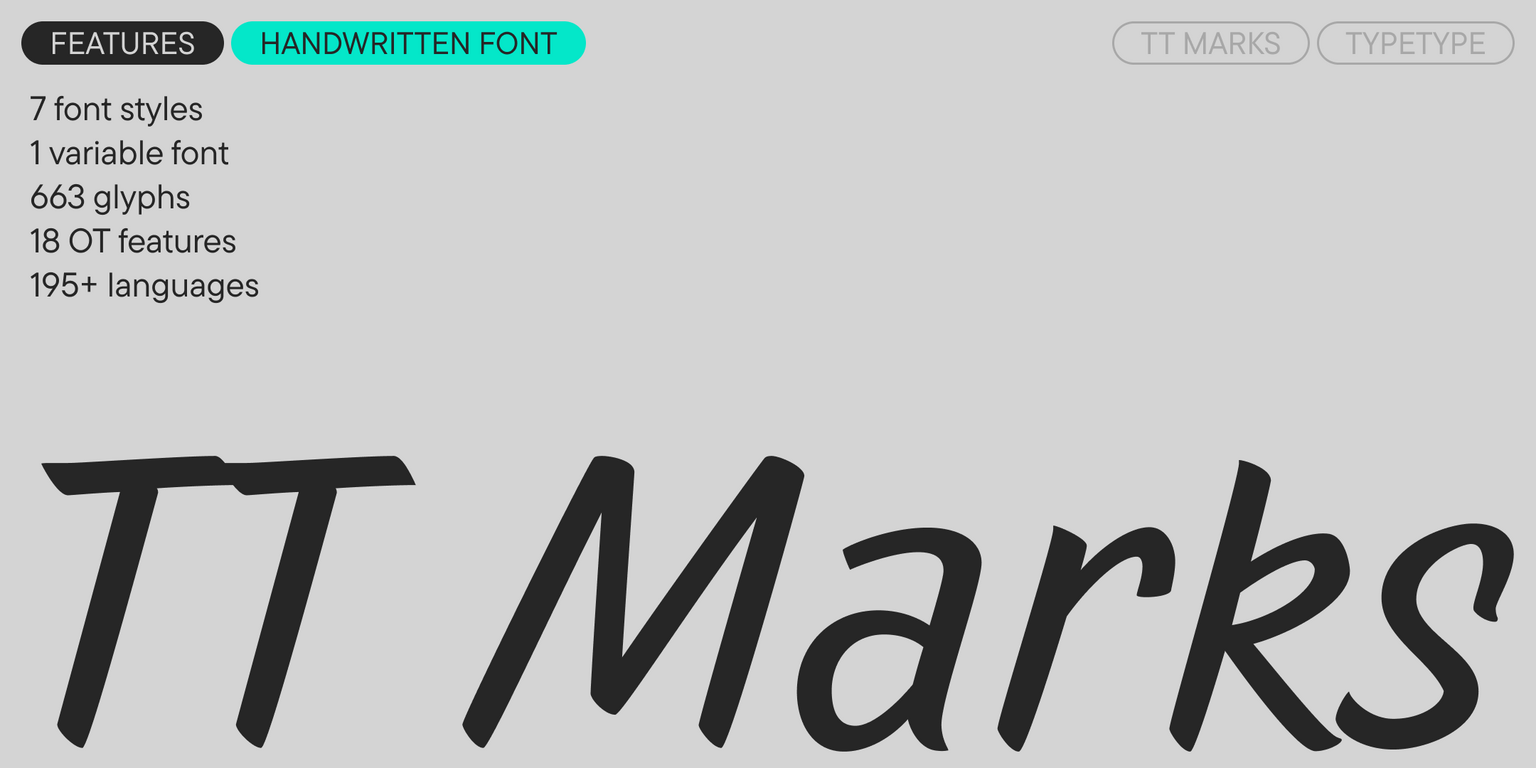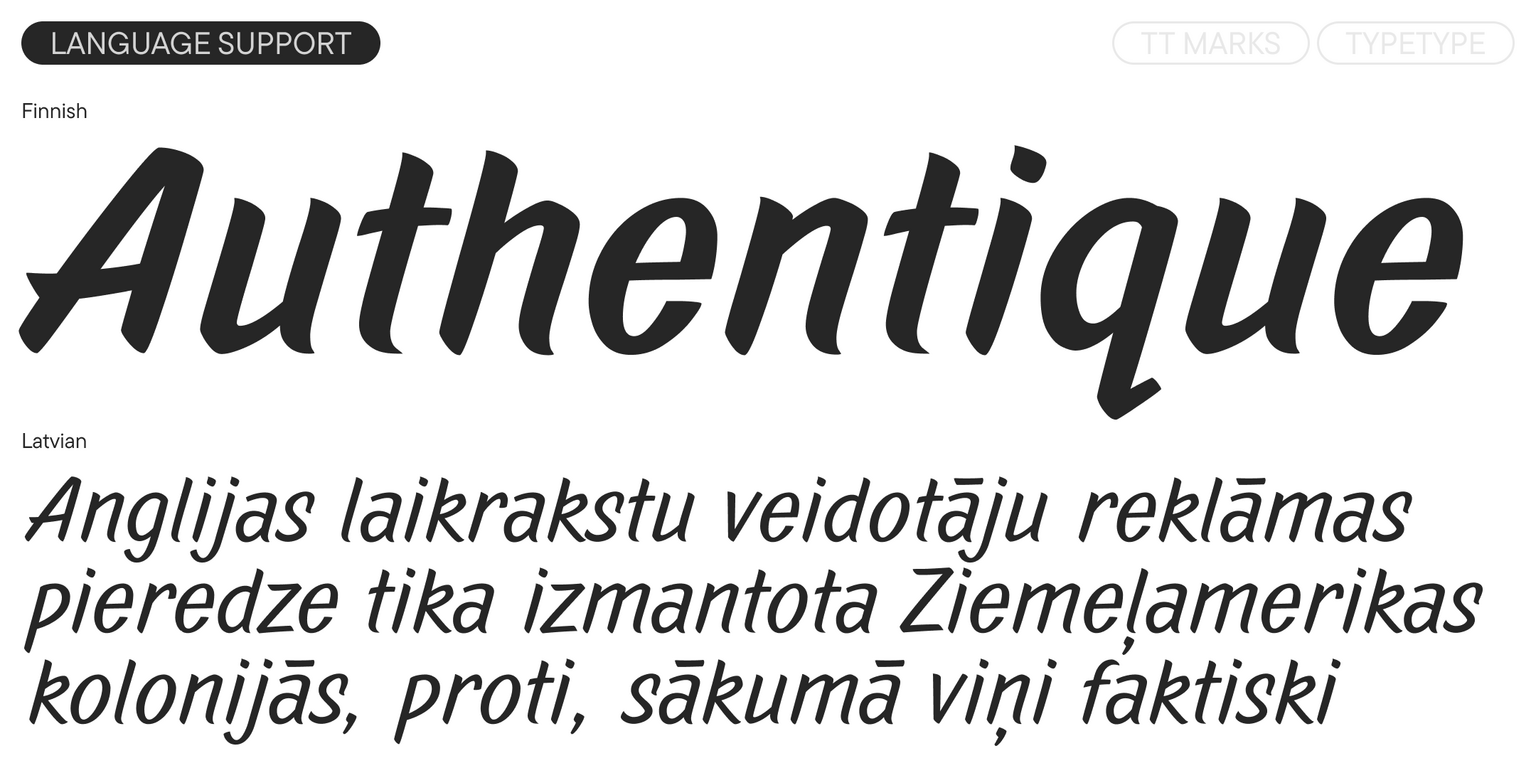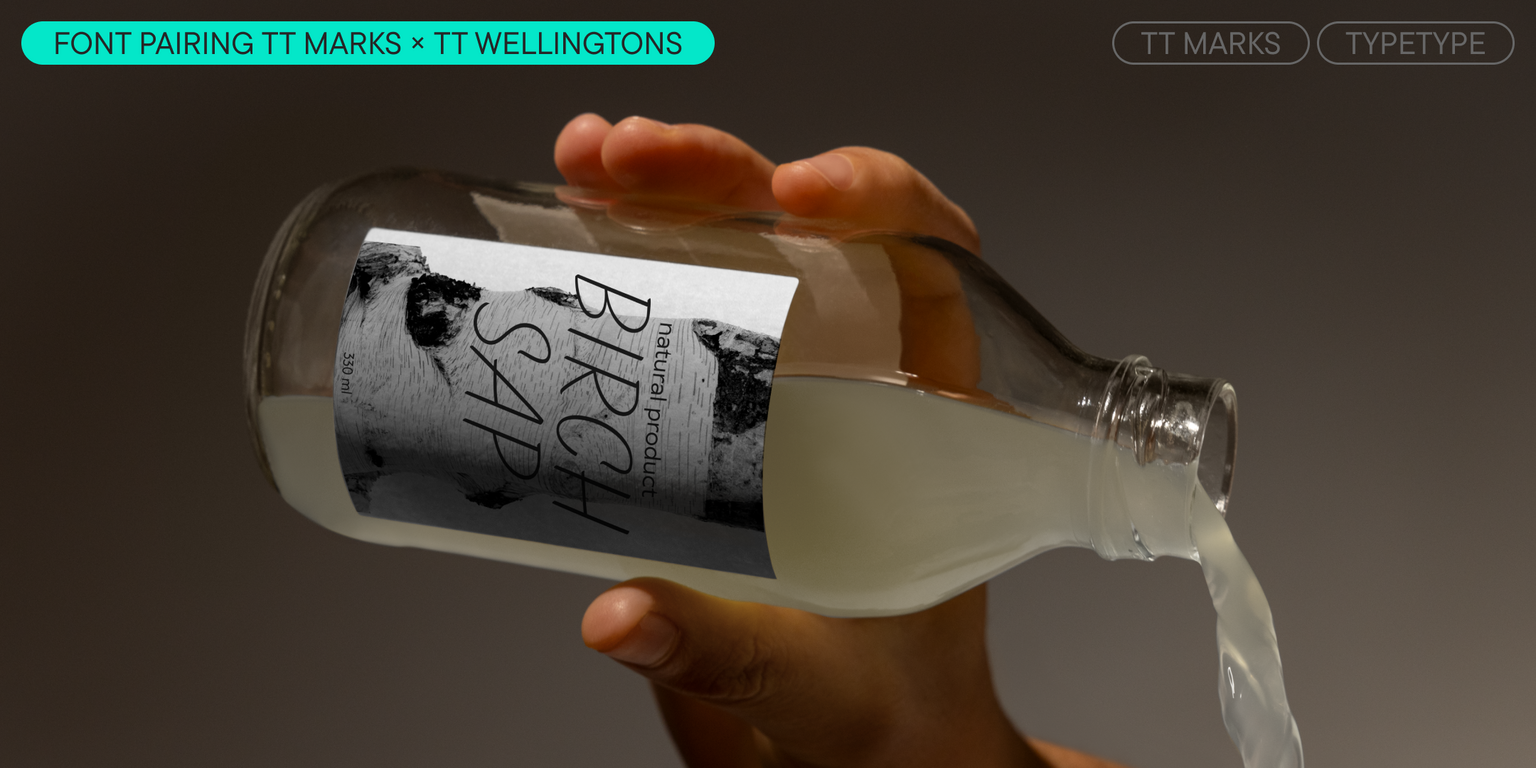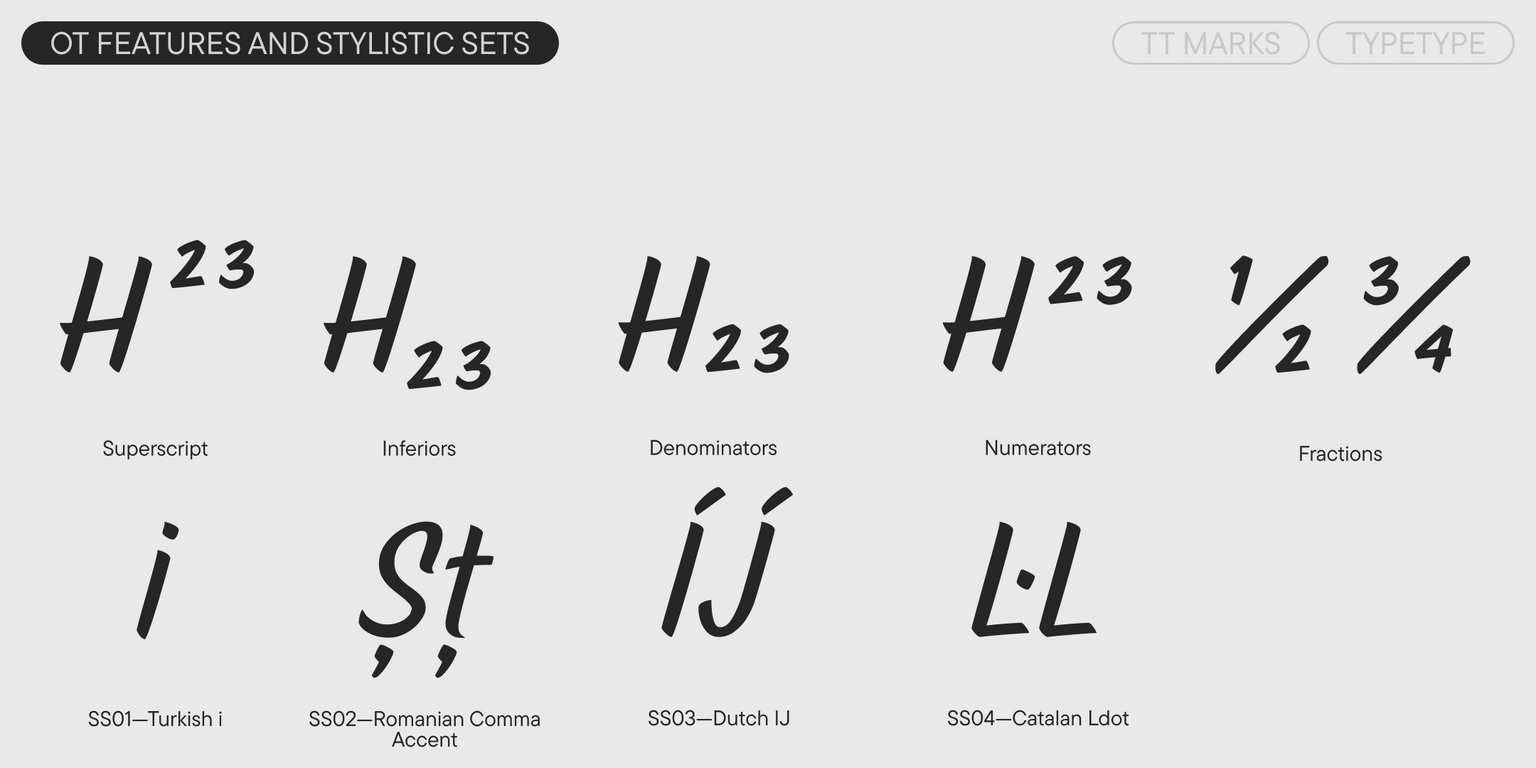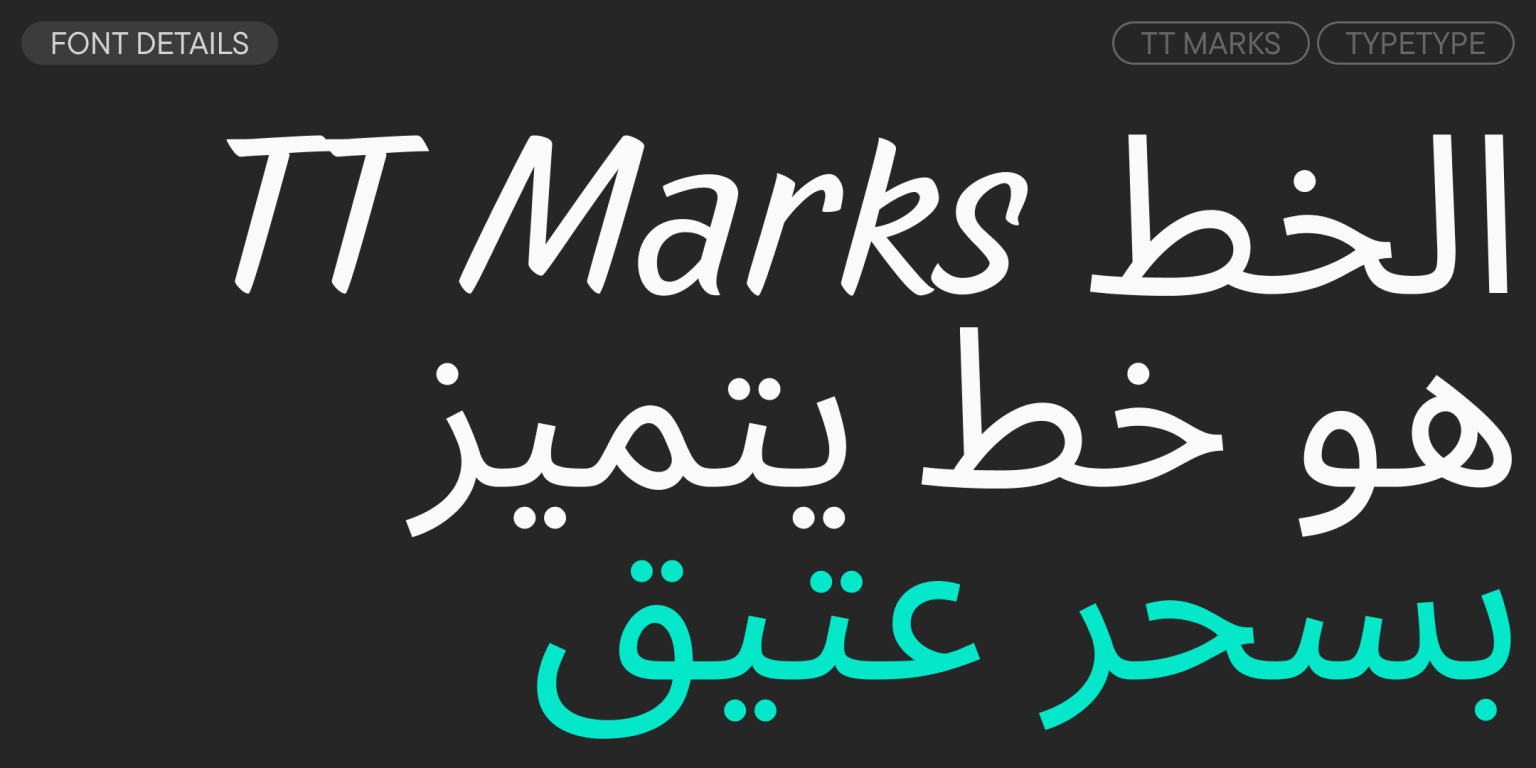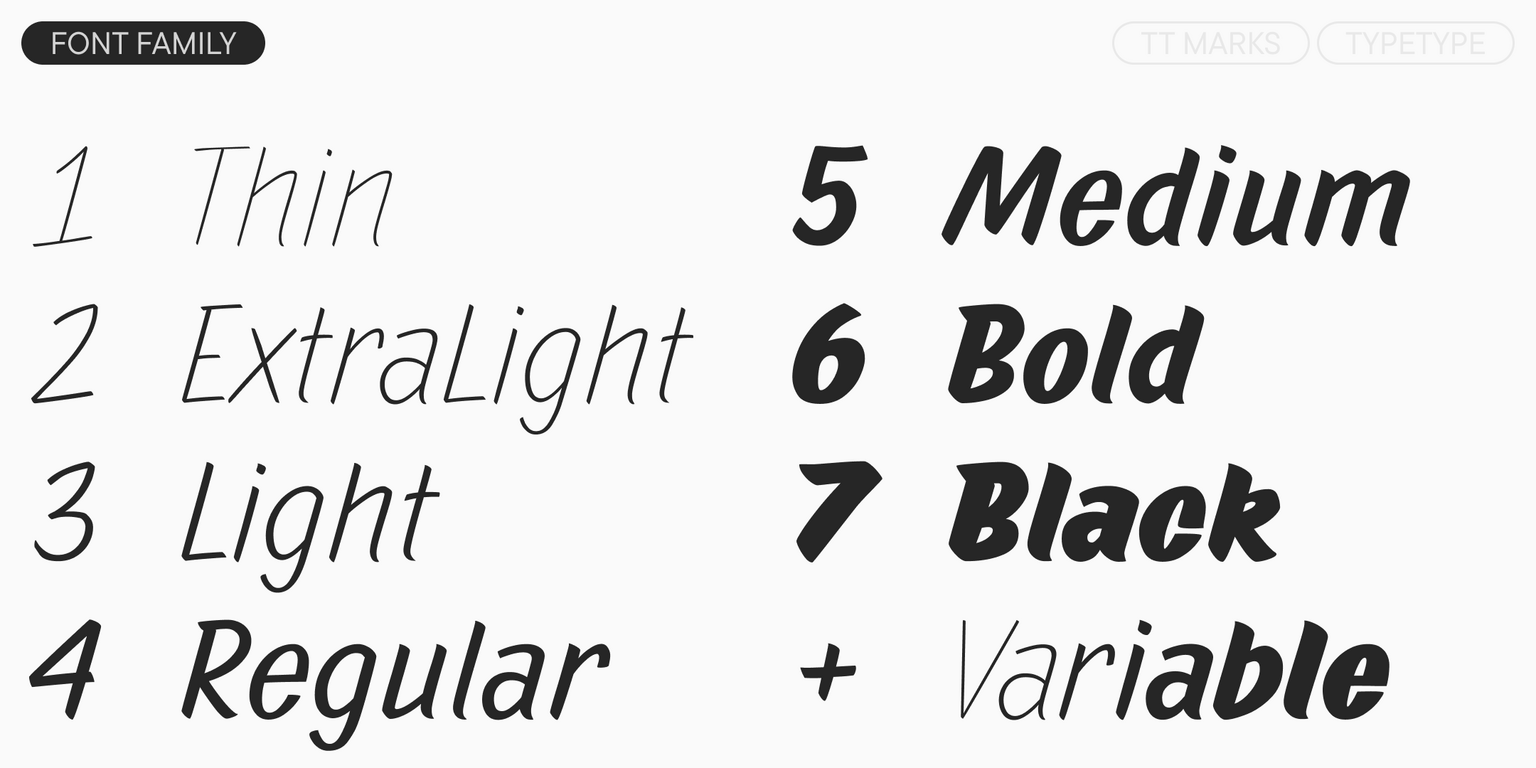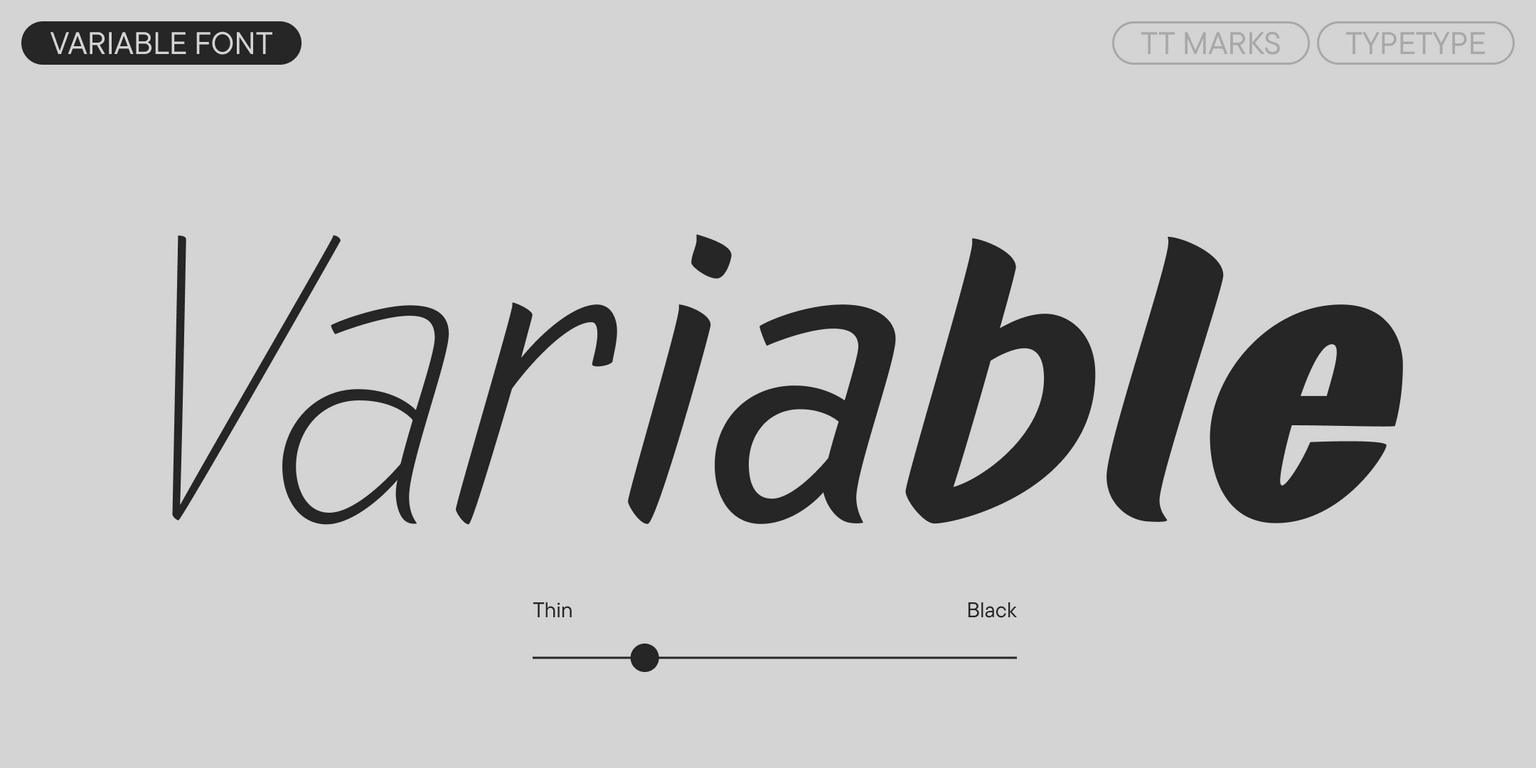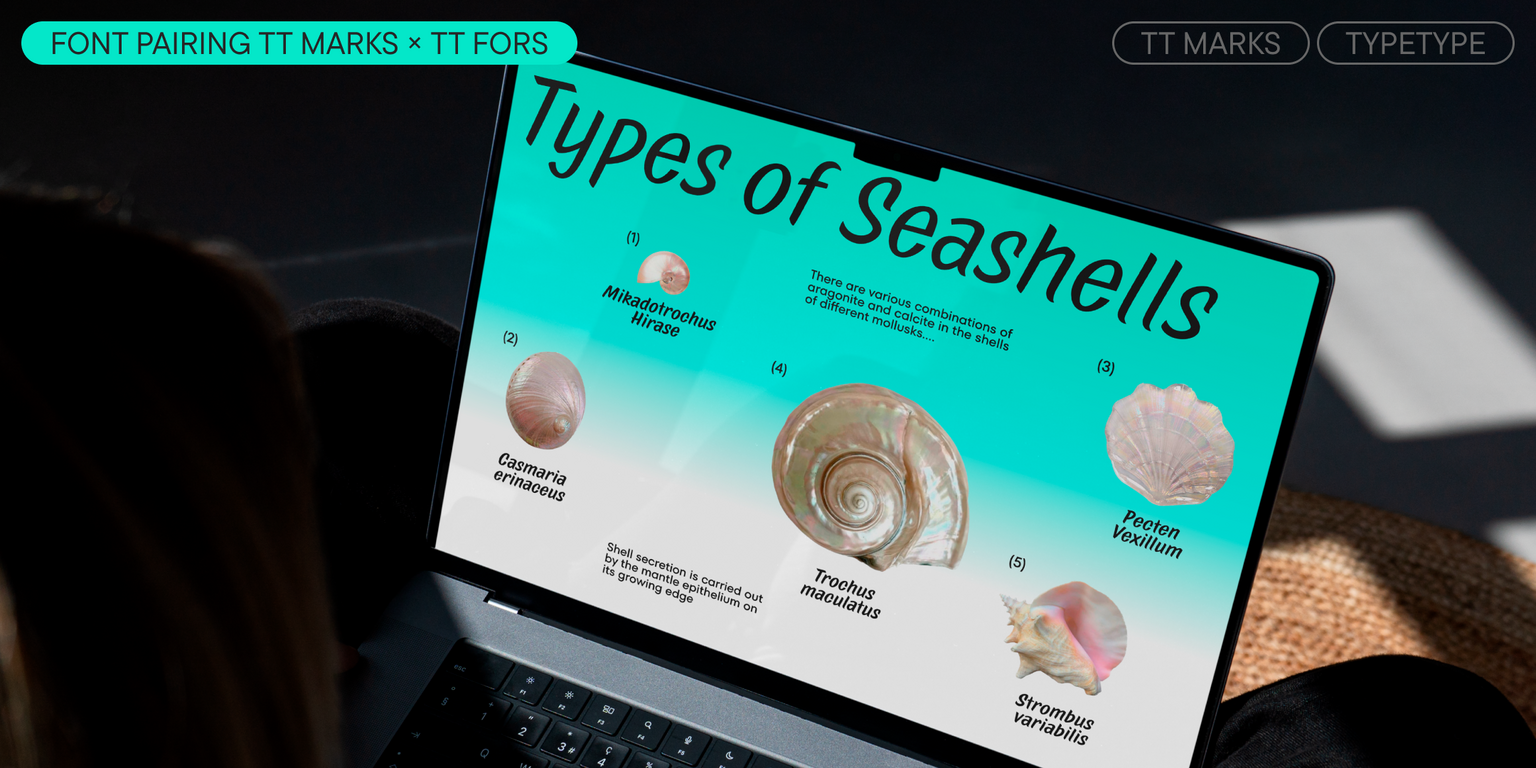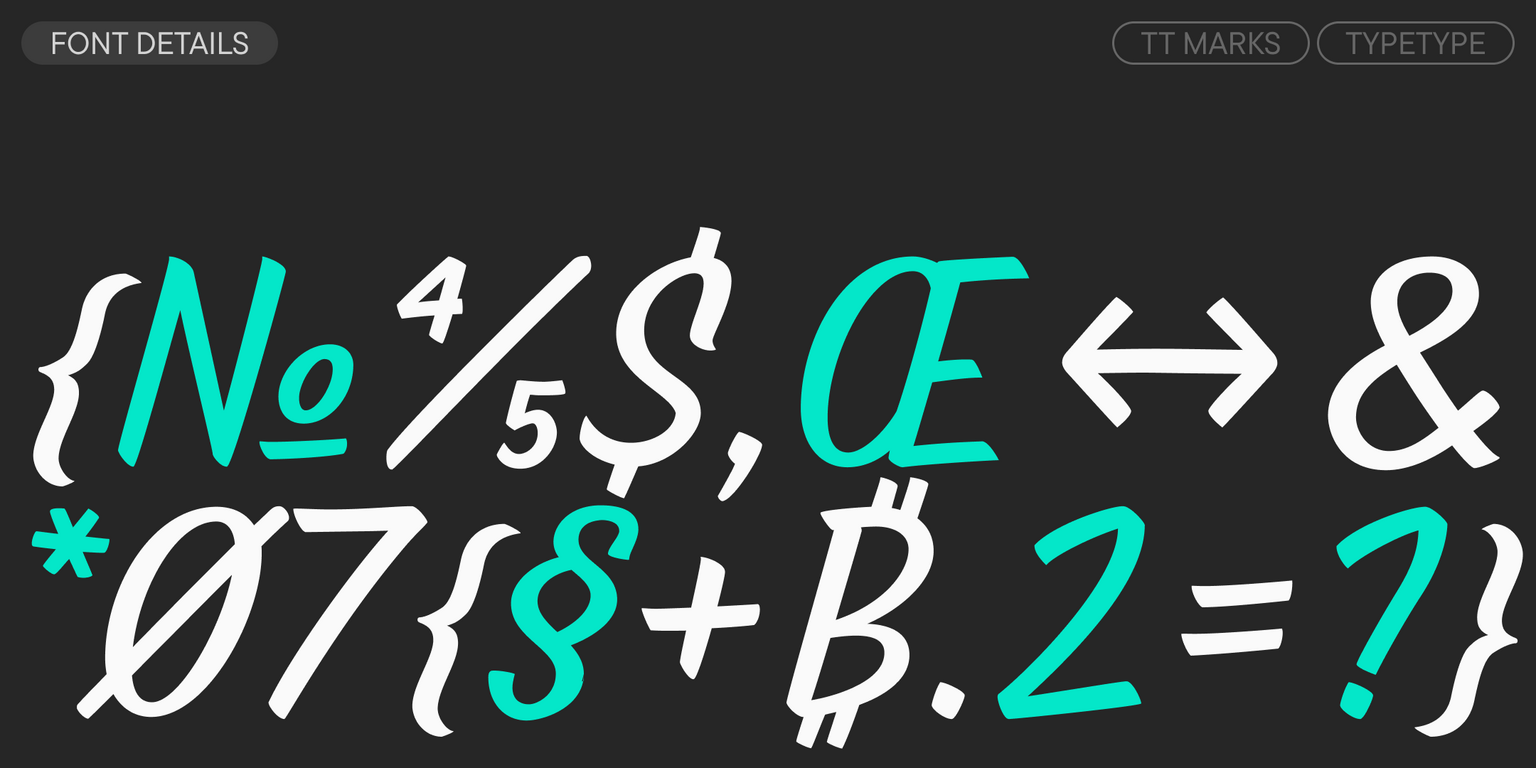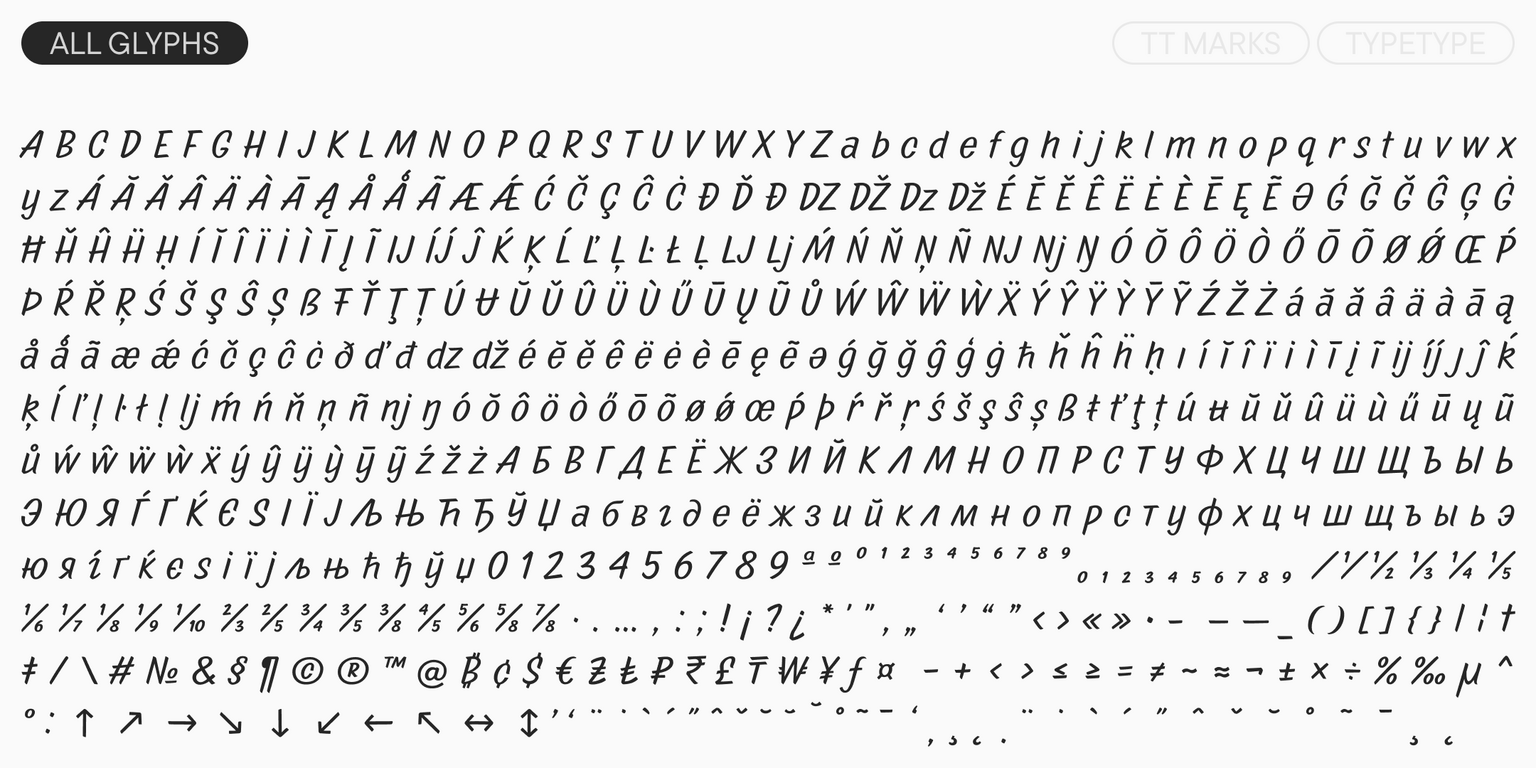
TT Marks
TT Marks is a decorative handwritten font characterized by its dynamic rhythm. It draws inspiration from classic American hand-painted signage (sign painting).
TT Marks: Vintage American Sign-Inspired Font
TT Marks captures the essence of classic hand-painted signage—the kind that skilled artists would create with brushes directly on storefronts and café walls. This typeface holds onto that handcrafted spirit with its lively strokes, deliberate imperfections, and authentic street character that elevated ordinary text into artistry. Perfect for branding, TT Marks brings vintage charm to logos and packaging. Use it on menus or coffee cups to instantly evoke cozy American diners. It’s a go-to for designers working on posters, book covers, and music flyers where personality matters most. Even in digital spaces—websites and apps—this font adds a human touch that today’s screens often lack. While staying true to its authentic roots, it remains versatile enough for virtually any project.
Available in seven weights from Thin to Black
Perfect for: posters, restaurant menus, book covers, signage
190+ Language support
Introducing TT Marks—our new decorative typeface that brings the authentic charm of vintage American signage to your fingertips!
TT Marks delivers a script with dynamic rhythm, heartfelt character, and nostalgic appeal inspired by the classic art of American sign painting. This craft, where skilled artists hand-painted storefront signage with brushes and careful technique, is experiencing a well-deserved renaissance in today’s design world.
Every curve in TT Marks celebrates its handcrafted origins: fluid strokes, intentional imperfections, and that unmistakable street-level charisma that makes this typeface both distinctive and immediately engaging.
OpenType features
ss02 | Romanian Comma Accent
Şş Ţţ
ss03 | Dutch IJ
ÍJ íj
ss04 | Catalan Ldot
L·L l·l
sups | Superscript
1 2 3
sinf | Scientific Inferiors
1 2 3
numr | Numerator
1 2 3